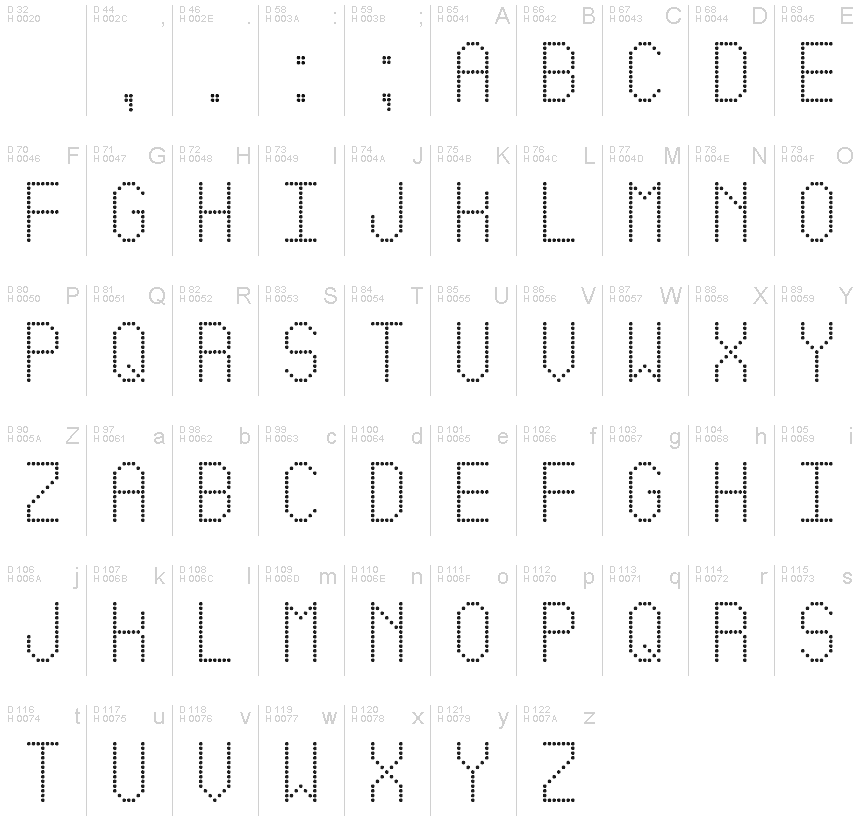
Led Simple St
Led Simple St, crafted by the skilled designers at Southype, exudes a captivating digital aesthetic that effortlessly captures the essence of modern, minimalist typography. This condensed, light-weight font boasts a clean, geometric style, with each character meticulously designed to convey a sense of simplicity and elegant precision. The striking, dot-matrix inspired letterforms seamlessly blend the classic appeal of retro technology with a contemporary flair, creating a visually engaging and visually striking font that is sure to command attention.
The versatile nature of Led Simple St makes it a compelling choice for a wide range of design applications. Its condensed width and light weight lend themselves perfectly to eye-catching headlines, impactful logos, and captivating user interfaces, where its distinct visual identity can truly shine. Whether crafting a futuristic branding campaign or designing a sleek digital experience, Led Simple St's unique blend of minimalism and digital appeal offers designers a versatile and distinctive typographic solution.